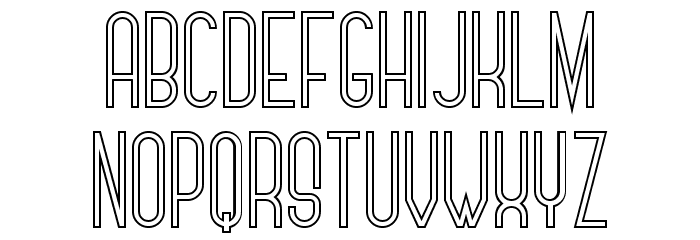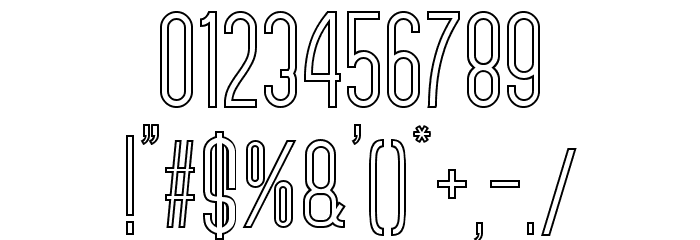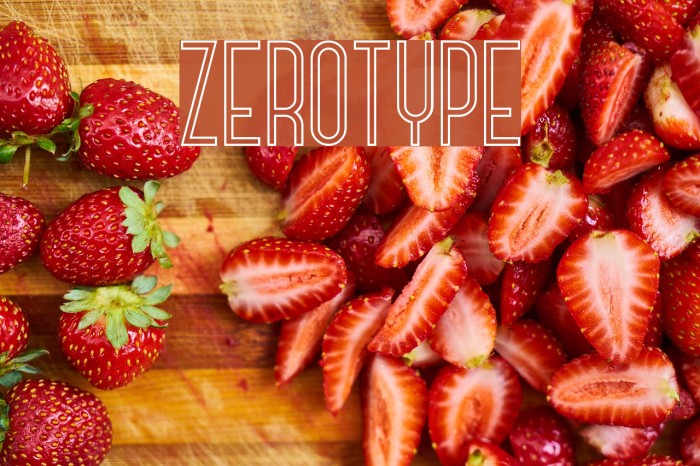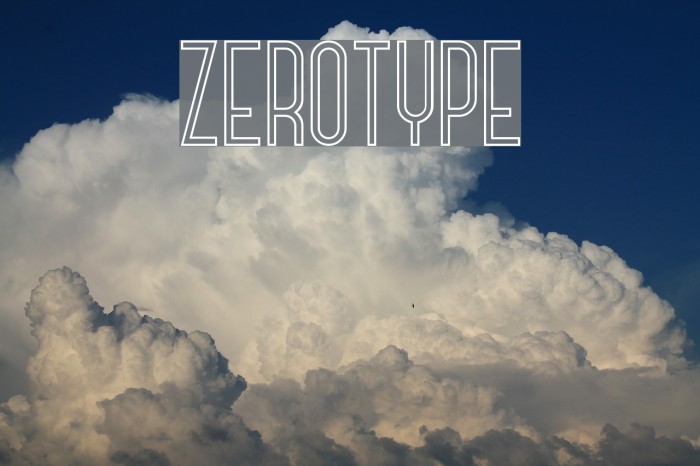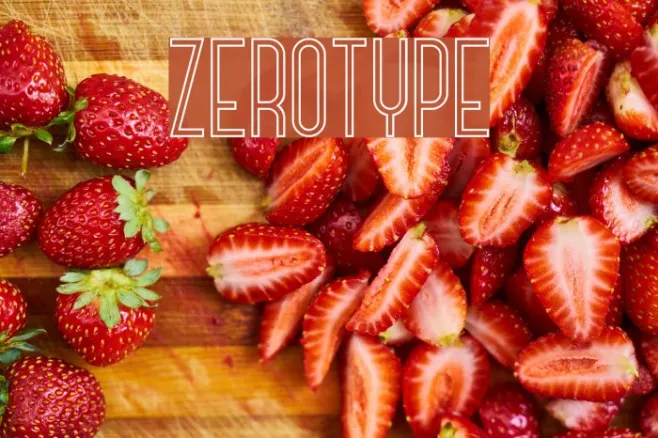
Zerotype Font
This font features a modern, geometric design with a distinct outline style. The characters are tall and narrow, giving a sleek and contemporary appearance. The uppercase and lowercase letters maintain a consistent height, contributing to a uniform look. The numbers and special characters are designed to match the overall aesthetic, with clean lines and sharp angles. This font's open structure and minimalistic design make it suitable for various creative applications.
A modern, geometric outline font with tall, narrow characters.
- Proposed Projects: Ideal for branding, posters, and digital media where a modern and clean aesthetic is desired.